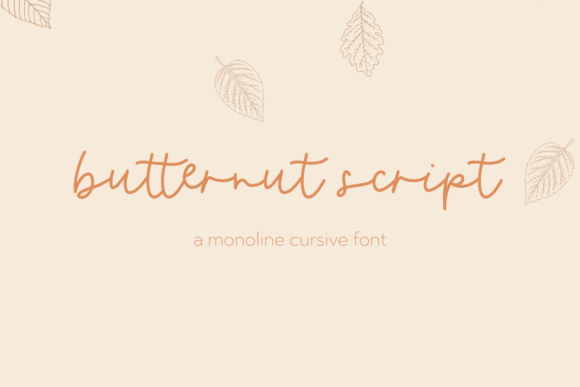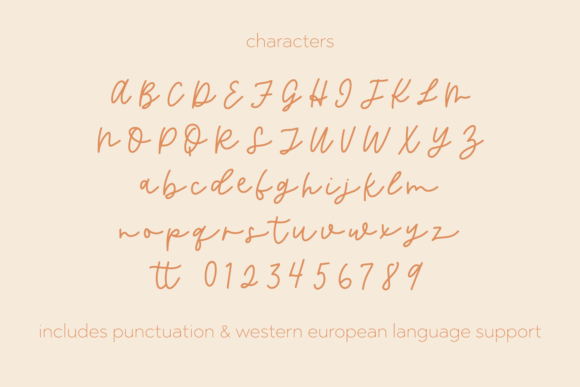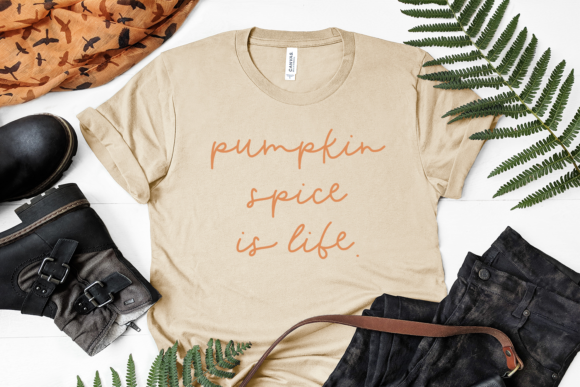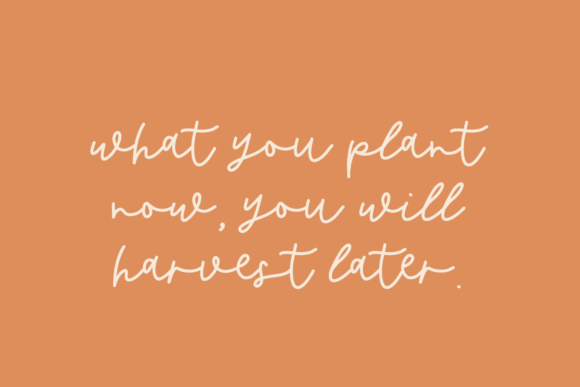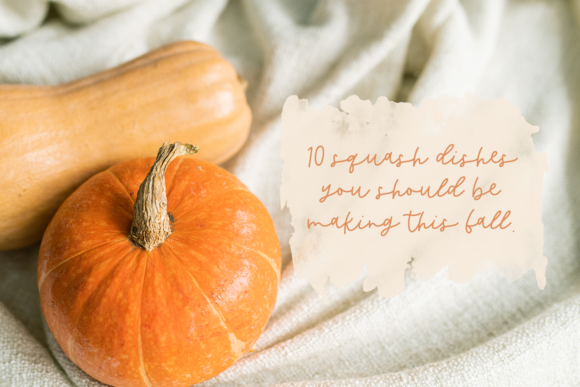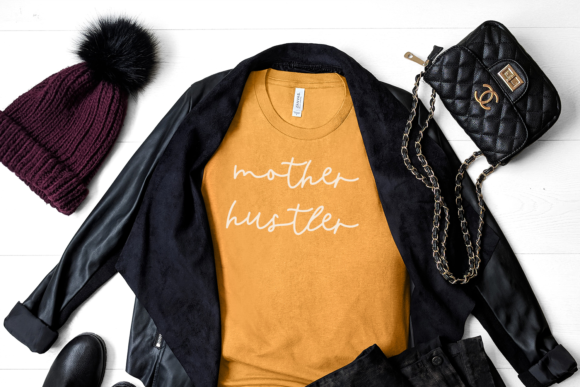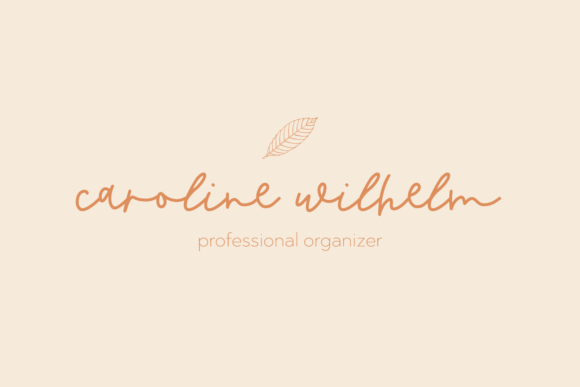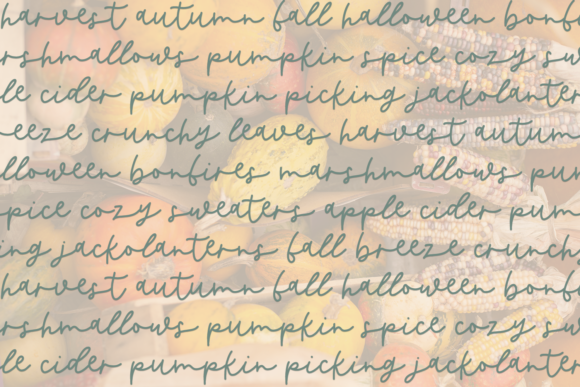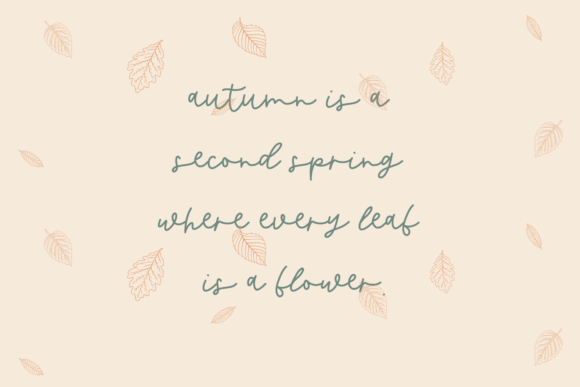
Butternut Font
Butternut: Embrace the Delicate, Elegant, and Flowing Handwritten Font
Introducing Butternut, a font that exudes delicacy, elegance, and flowing charm with its beautiful handwritten style. With its well-balanced characters, this font effortlessly complements a wide range of designs. Whether you’re creating enchanting wedding invitations, crafting heartfelt thank you cards, designing inspiring quotes, captivating logos, sophisticated business cards, or any other project that calls for a handwritten touch—Butternut is the perfect choice. Its captivating beauty brings a touch of life and charm to each creative idea, making them come alive with an air of sophistication.
The allure of Butternut lies in its delicate and elegant appearance. Each letter is meticulously crafted to showcase a harmonious blend of grace and beauty.
Designing with Butternut is a delightful experience. Its flowing nature and well-balanced characters bring an effortless refinement to your creations, making them stand out with allure.
Fall in love with the versatility of Butternut. Whether you’re designing for joyous occasions or conveying heartfelt sentiments, this font adapts seamlessly to suit your creative vision.
Unlock the full potential of your creativity with Butternut’s charming and well-designed characters. They allow you to add a personal touch to your designs, making each piece truly special.
Gorgeous designs come to life with Butternut’s captivating style. Whether you’re crafting wedding invitations that exude romance or designing logos that leave a lasting impression, this font adds a touch of beauty that captivates the eye.
In conclusion, Butternut is more than just a font; it’s an enchanting masterpiece designed to elevate your projects to new heights. Embrace its delicate allure, and let it become the centerpiece of your most cherished designs. Whether you’re celebrating love, expressing gratitude, or engaging in any creative endeavor, Butternut will be your trusted companion, adding a touch of elegance and charm. Allow this font to unlock the full potential of your creativity, and watch as your designs come alive with the captivating and flowing spirit of Butternut. Fall in love with its timeless beauty, and let it be the guiding light that leads you to create truly spectacular designs that leave a lasting impact on all who behold them.